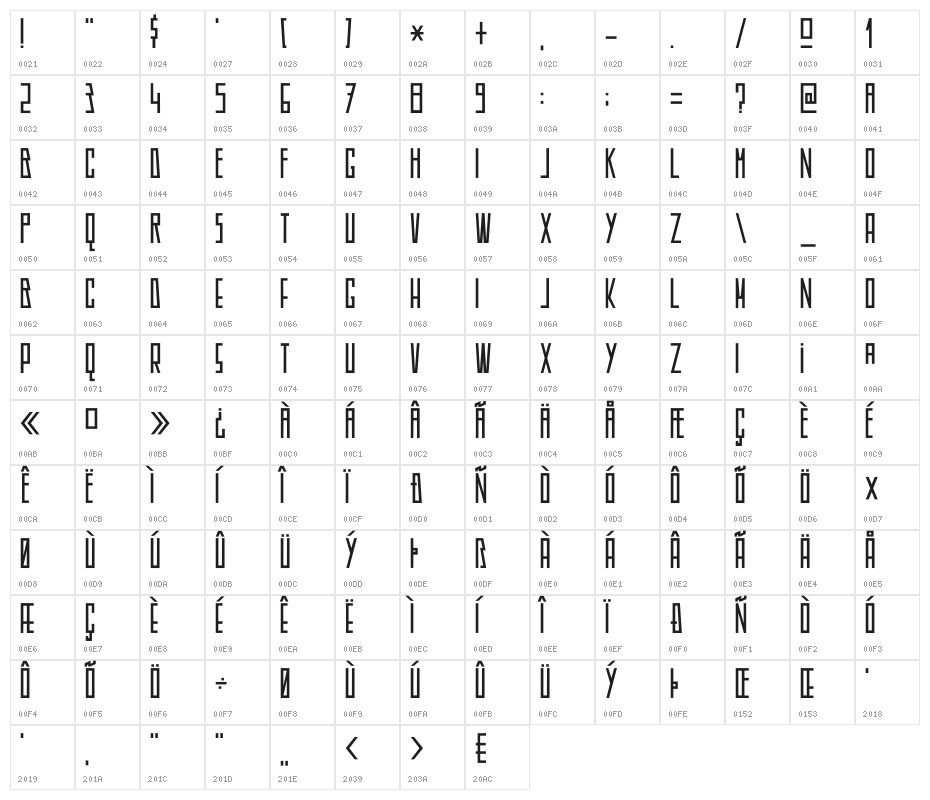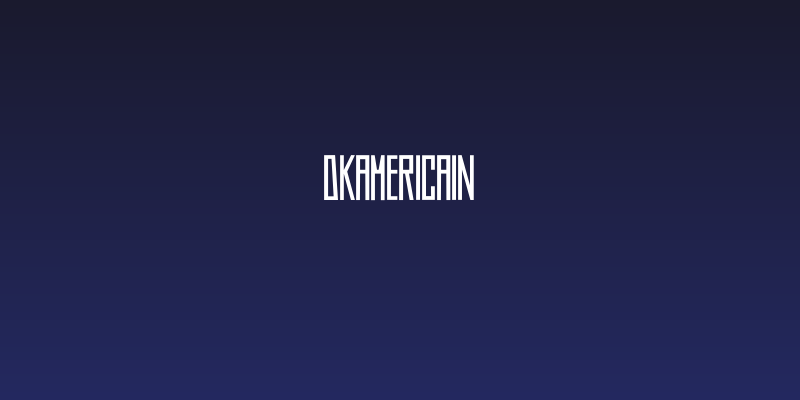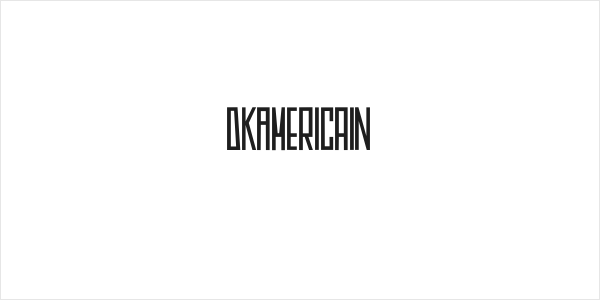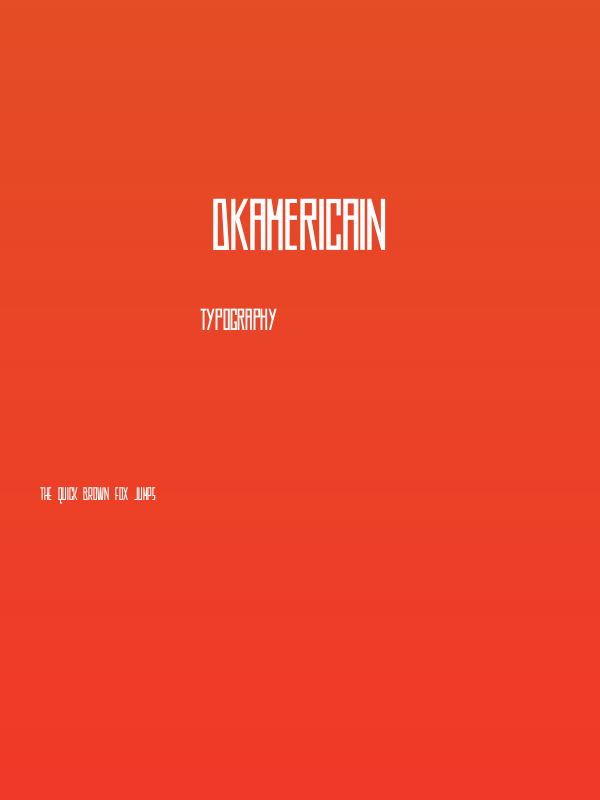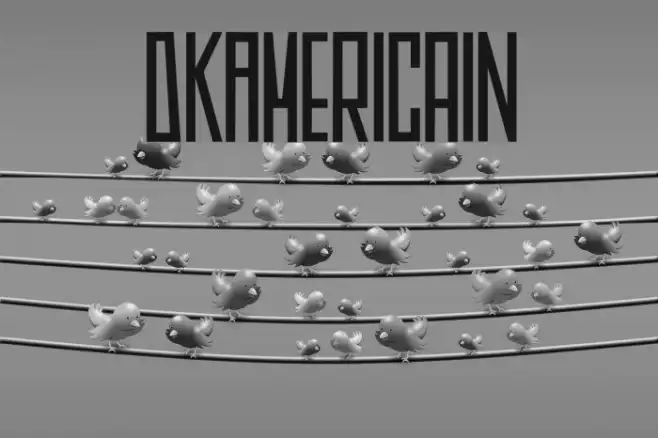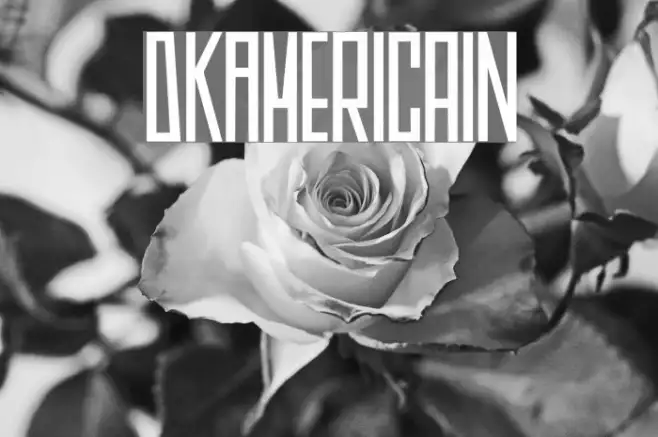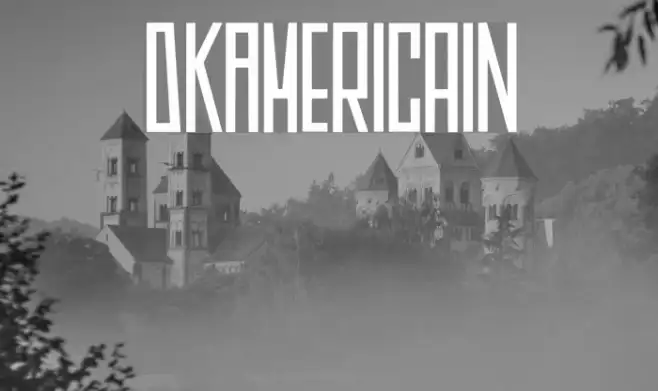
DKAmericain Font
DKAmericain Description
This font features a bold and geometric design with a strong emphasis on vertical lines and sharp angles. The uppercase letters are tall and narrow, creating a striking and modern appearance. The lowercase letters maintain the same geometric style, ensuring consistency throughout the typeface. Numbers are similarly designed, with a uniform height that aligns with the uppercase letters. Special characters are crafted to match the overall aesthetic, providing a cohesive look. The font's unique style makes it suitable for attention-grabbing headlines and modern design projects.